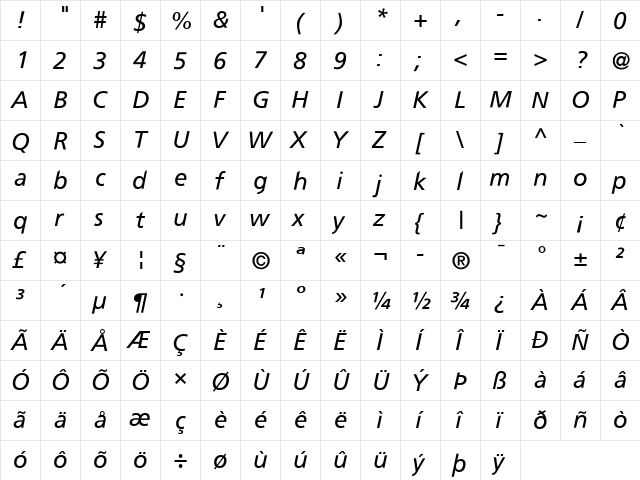
FreewayRomanItalic Medium
Design Context for FreewayRomanItalic Typeface
FreewayRomanItalic is a composed and adaptable typeface that performs quietly and consistently across a wide range of design contexts. The dynamic lean of this cut emphasises speed and emphasis in any layout.
Pro Tip: Use FreewayRomanItalic for emphasis, pull quotes, and subheadings where its slanted energy can add rhythm to the layout.